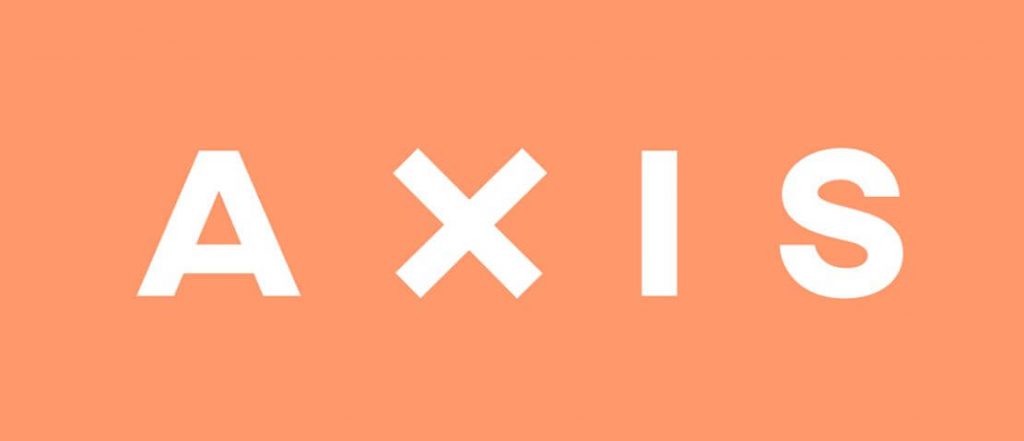
Hello Designers! We are excited to present the Axis Typeface font. It is perfect for enhancing the beauty of your designs. This font was created by Ean Wojciechowski.
Axis Typeface lovely display font encouraged by using the geometry of the urban environment like biondi font.